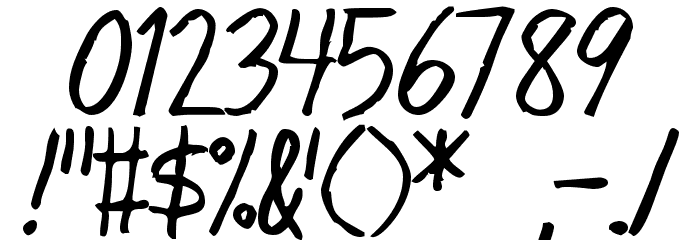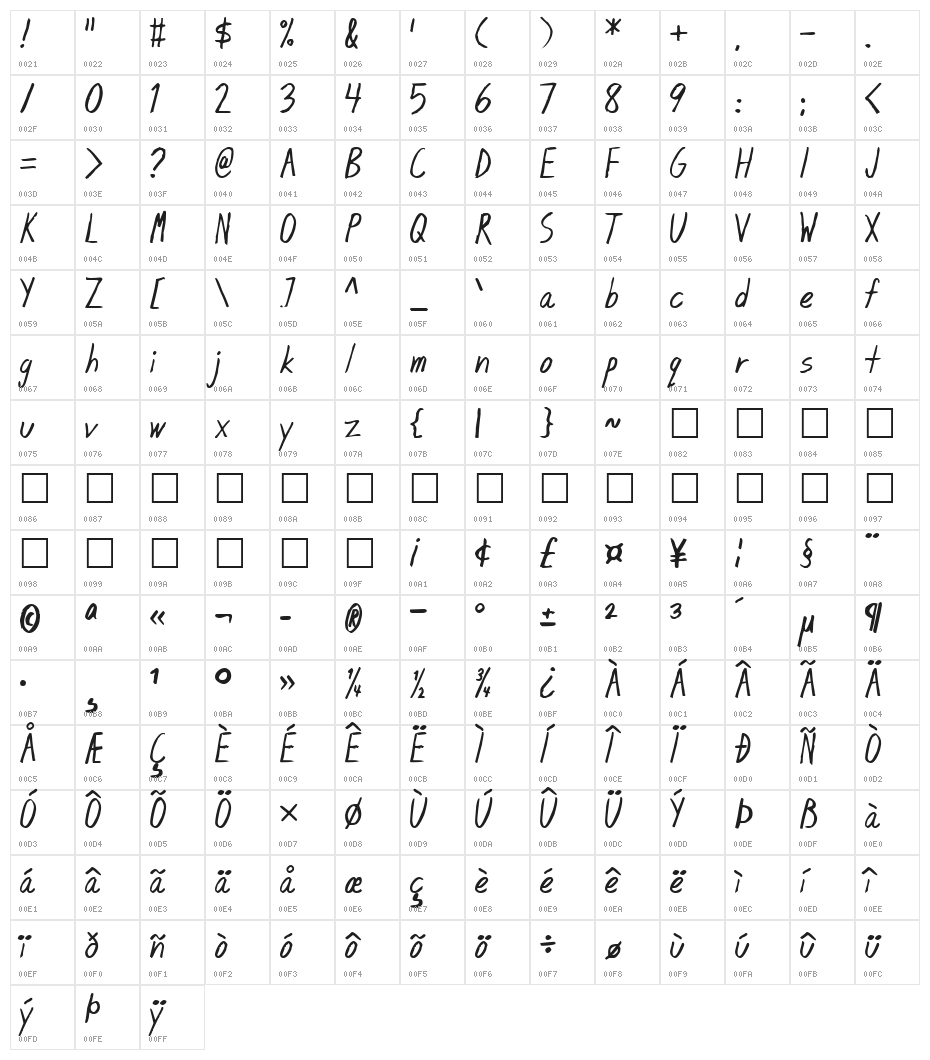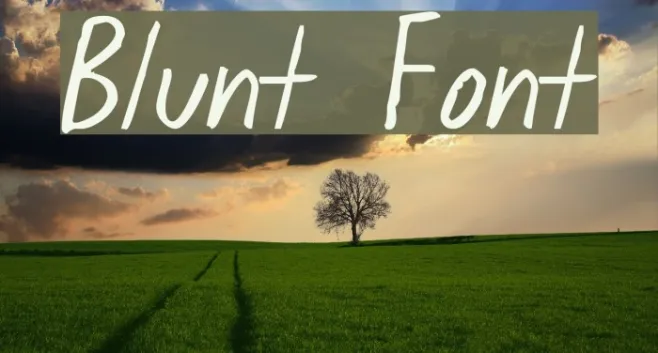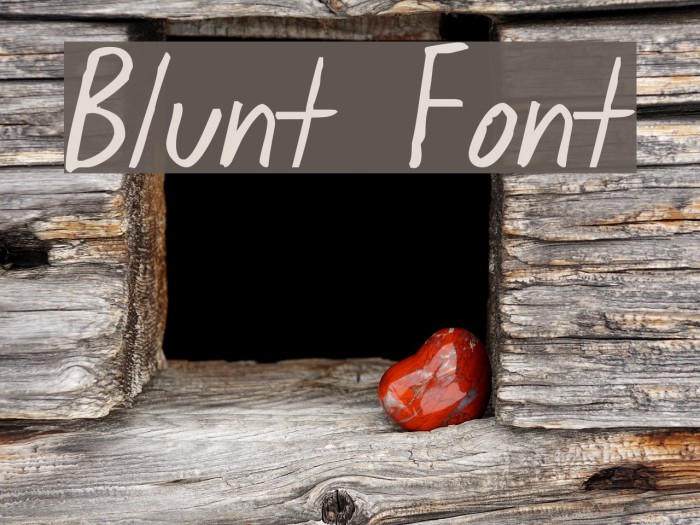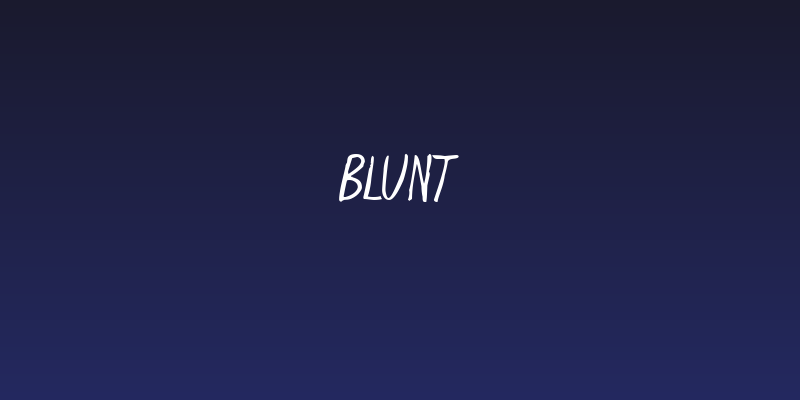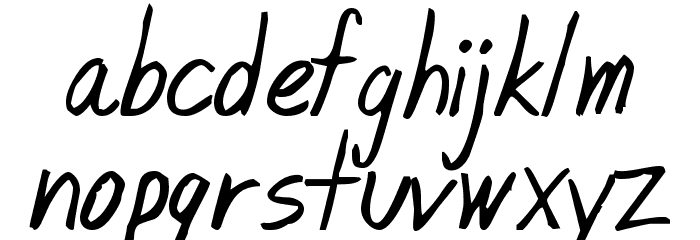
Blunt Font
Blunt Description
This font features a handwritten style with a casual and informal appearance. The letters are slightly slanted, giving a dynamic and energetic feel. The strokes are uneven, mimicking the natural flow of handwriting. The uppercase and lowercase letters maintain a consistent style, with rounded edges and varying stroke thickness. Numbers and special characters are designed to match the playful and spontaneous look of the alphabet. This font is ideal for projects that require a personal touch or a creative flair.
| Use Case | Headlines, Logos, Informal text |
| Proposed Projects | Great for greeting cards, personal branding, creative posters, and informal invitations. |